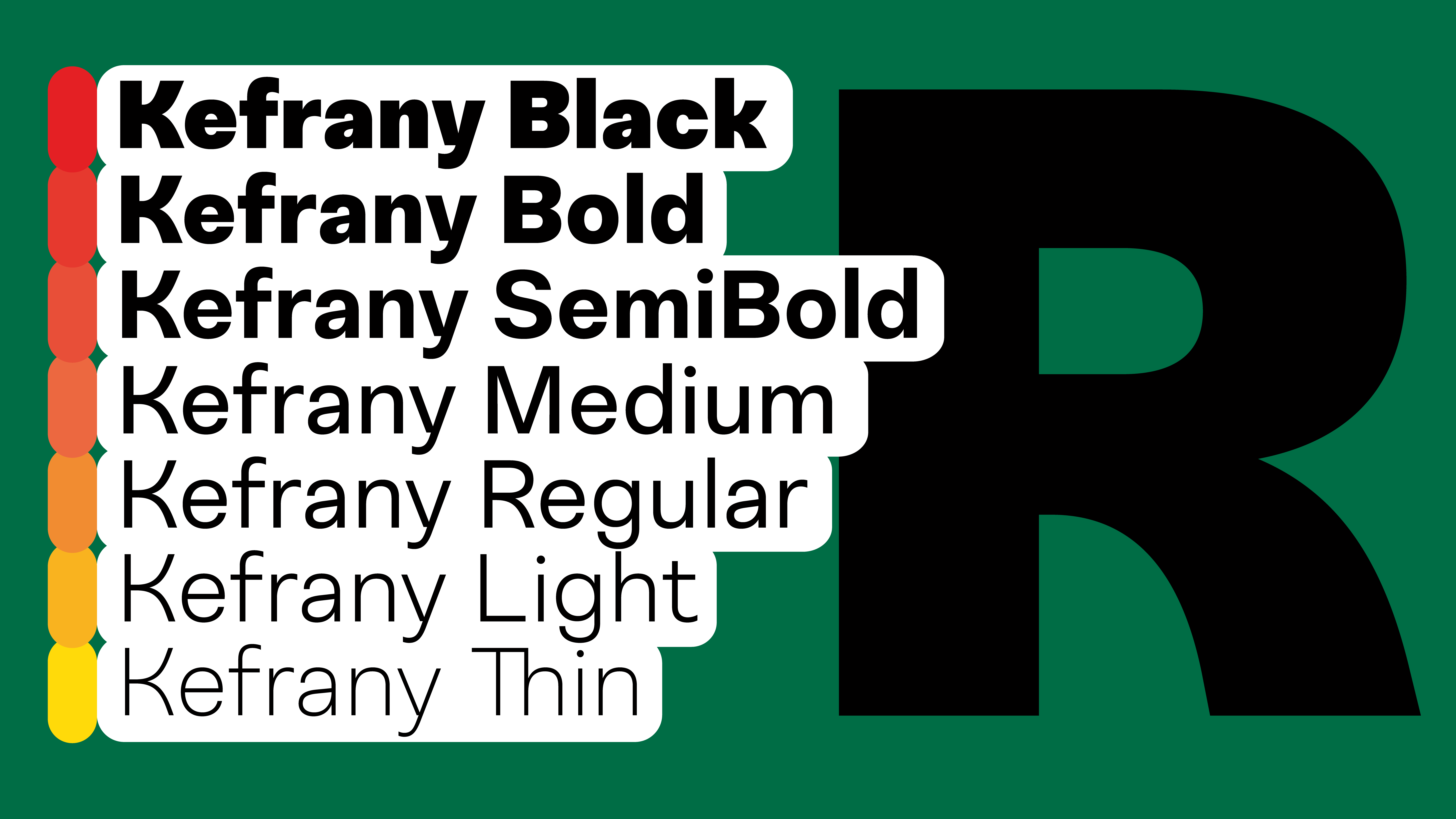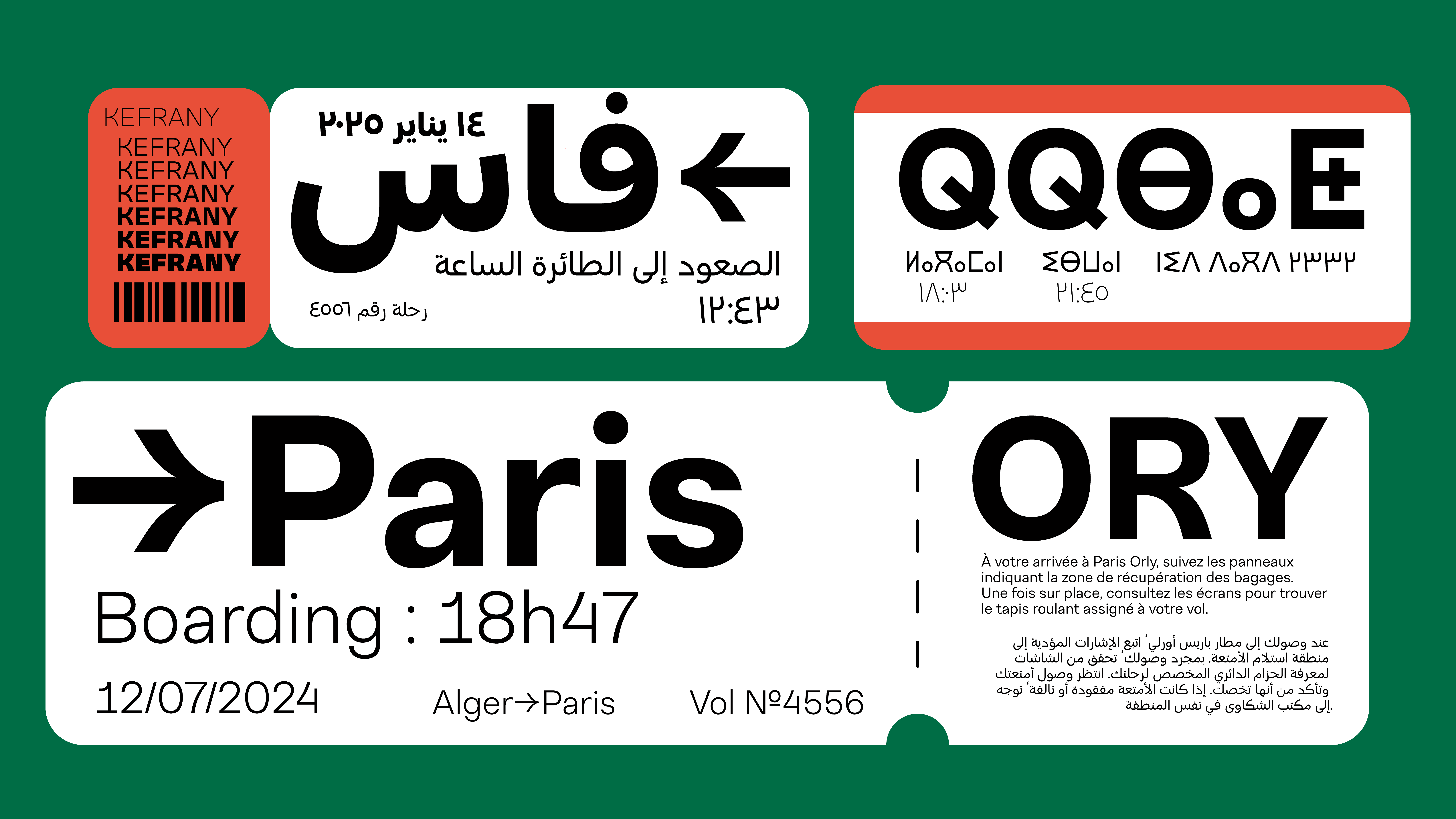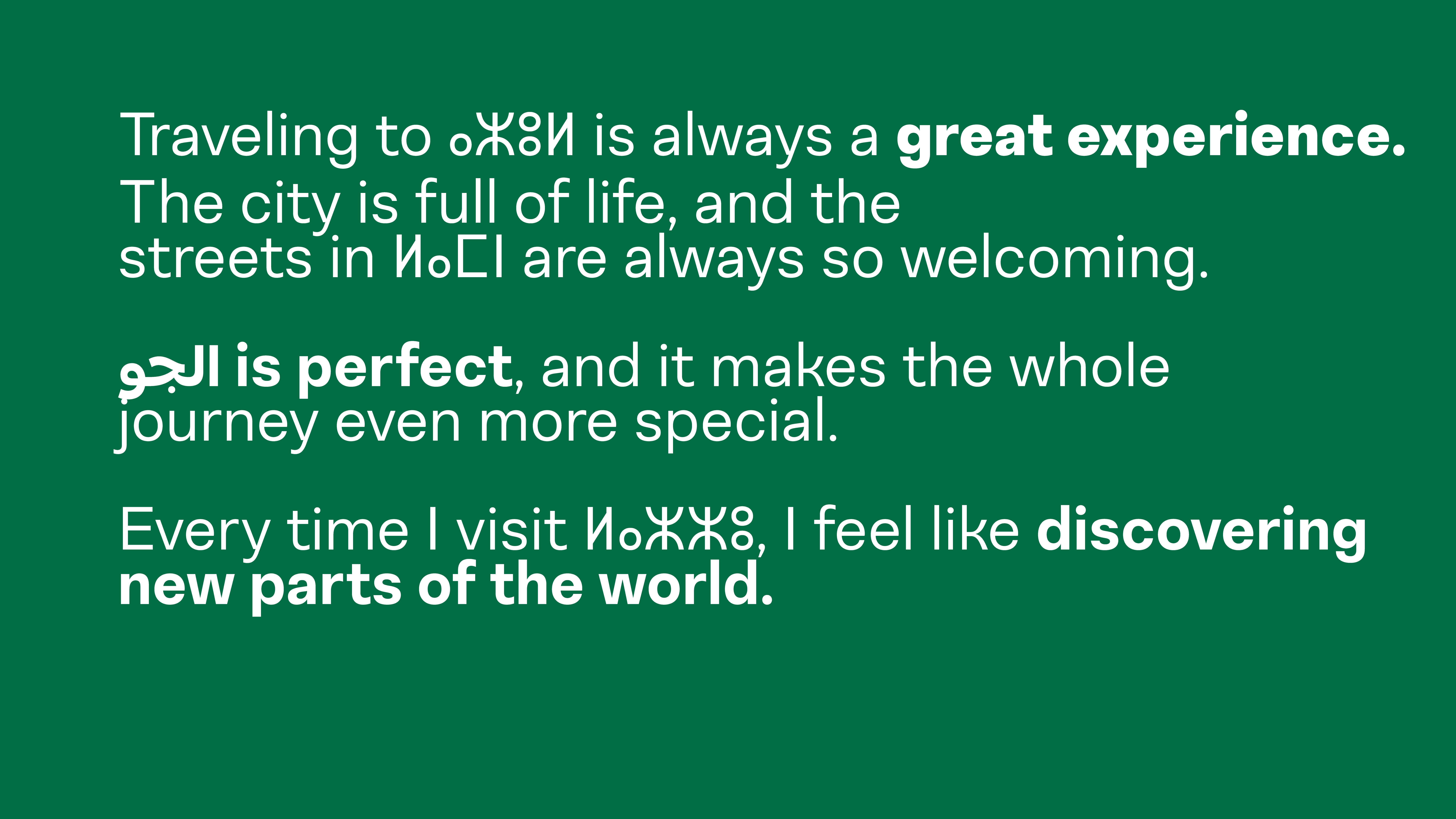
Kefrany
كفراني
في بابلفونت، لا نرسم الحروف... بل نُحرّرها من أقفاص اللغة! هل رأيتَ حرفًا يتمطّى؟ نحن رأيناه. وحرفًا آخر يرقص على السطر، ثم يختفي فجأة في هامش المعنى. بعض الحروف عندنا تنام في الكلمة، وبعضها الآخر لا يعرف النوم... كل ما يريده هو النطق، النطق، ثم النطق! وهناك حرف كان يصرخ: "أنا لست نقطتين فوق التاء، أنا تاج!" وحرف آخر رفض أن يكون في نهاية الجملة، لأنه يخاف من النقطة. في بابلفونت، الحروف تتحدث لغات لا تُعدّ. العربية، اللاتينية، التيفيناغ، الكورية... كلها تجلس على طاولة واحدة، تشرب الشاي، وتتناقش في قضايا الشكل والبياض والميزان البصري. قد تقول لي: "لكن الحرف لا يتكلم!" وأنا أقول لك: بل يتكلم، فقط عليك أن تقرأه جيّدًا. الخط ليس مجرد رسم، إنه تمثيل مسرحي صامت، يصرخ دون صوت. بعض الخطوط سمينة، وبعضها نحيفة، وبعضها مثل طير لا يعرف أين يضع قدميه. في بابلفونت، لا نبيع الخطوط، بل نروي بها القصص. الخط عندنا لا يُقصّ ولا يُضغط... هو يُهمَس، يُقطّر، يُسكب على الصفحة كالعطر. حرف العين قال يومًا لحرف الاّم: "أنا أعقد منك!" فردّ الاّم: "لكنني أطول!" وفي النهاية اتفقا على أن الجمال في الخط ليس في الطول أو العقد، بل في الانسجام. نحن في بابلفونت لا نبحث عن الحروف، نحن نخلقها. ثم نتركها تسير على الورق كما تشاء... فهل تجرؤ على قراءتها؟
ⴽⴻⴼⵔⴰⵏⵢ
ⵜⴰⵡⵉⵏⴰ ⵉⵏⴰⵡⴰⵙⵙ ⵏ ⵉⵖⵔⵉ ⴷ ⴰⵎⵓⵍ ⵏ ⴰⵙⴳⴰⵣ. ⵉⵖⵍⴰ ⴷ ⴰⴽⴰⵣ, ⴰⵙⵉⵏ ⴷ ⵢⵉⵏ, ⵉⵎⵓⵙⵙⴰ ⵓⵏⴰⴷ ⴰⵎⴰⵣⵉⵖ ⴰⴷ ⴰⵍⴰⵎⴰⵏ. ⴰⵡⵉⴷ ⴰⴳⵔⴰⵡ ⵓⵙⵏⵉⴹ, ⵏⵉⴷⵓⴷ ⴰⵣⴰⵍ, ⵉⵍⴰ ⵓⴱⴰⵔⴷ ⴰⴽⵔⴰⵡ ⵙⴰ ⵉⵣⴰⵡⴰⵏ. ⴰⵎⴰⵍⵍⵓ ⵏⵉⵖ, ⴰⴷⵔⴰⵏ ⵉⴷ ⴰⵏⵉⵍⵍⵉ ⴷ ⴰⴷⵓⴷⵉⵏ. ⵓⵙⵍⴰⵡ ⴰⵏⵎⴰⴹ ⵏ ⵜⴰⵡⵉⵏⴰ ⴷ ⴰⵙⴳⴰⵣ ⵙ ⵜⴰⵙⴳⴰⵡⵜ ⵓⵏⴰⴷ ⵜⴰⵎⴰⵣⵉⵖⵜ. ⴰⵡⵉⵙⵉ ⵙⴰ ⴷⴰⵔ ⵉⴷ ⵓⵏⵖⵓⵍ ⴷ ⴰⵔⴰⵡ. ⵙⵉⵏ ⴰⴷ ⴰⵙⵙⵓⵔⵉⵏ ⵙ ⵜⴰⵣⴰⵍⵜ. ⴰⵏⴰⵎⴻⵔⴰ ⵏⴰⵎⴰⵢⵏ ⵉⵙⴷⴰ ⵓⴷⴻⵔⵏ ⵏⵓⵎⴻⵔⵍⴰⴷ, ⵓⵏⴰⴷ ⵉⵎⴰⵙⴷⴰ ⴷ ⴰⵍⴰⵎⴰⵏ. ⵉⵏⴰⵡⴰⵙⵙ ⵜⴰⵎⵓⵍⴰⵡⵉⵜ, ⵙⵙⴰⴳⴰⵔⵉⵜ, ⵙⴰⵡⴰⵙⴰⵏⵜ. ⴰⴳⴳⴰⴷ ⵏ ⵉⵙⵙⴰ ⴰⴷ ⴰⴳⴳⴰⴷ ⵏ ⵓⴳⵔⴰⵡ. ⵜⴰⵡⵉⵏⴰ ⴷ ⴰⴼⴰⵏⴰⵙ ⴷ ⵜⴰⵎⵓⵣⵣⴰ ⵉⴷ ⴰⵙⵉⵏ. ⵜⴰⵏⴰⴹⴰ ⴷ ⵜⴰⵎⴻⴳⴷⴰ ⵉⴷ ⵜⵉⵎⵓⴽⴽⴰⵍⵉⵢⵉⵏ. ⴰⵍⴰⵎⴰⵏ ⴷ ⴰⵙⴳⴰⵣ ⵙⴰ ⵉⴱⴰⵏ ⵙ ⵓⴱⴻⵙⴰⵡⵉⵏ. ⵓⵙⵍⴰⵡ ⴰⴳⴷⴰⵔⴻⵏ, ⵓⵙⵍⴰⵡ ⴰⵍⴻⴷⵉ ⴷ ⵜⴰⵏⵏⴰⵙⵙⵓⵏⵜ.ⵜⴰⵡⵉⵏⴰ ⵉⵏⴰⵡⴰⵙⵙ ⵏ ⵉⵖⵔⵉ ⴷ ⴰⵎⵓⵍ ⵏ ⴰⵙⴳⴰⵣ. ⵉⵖⵍⴰ ⴷ ⴰⴽⴰⵣ, ⴰⵙⵉⵏ ⴷ ⵢⵉⵏ, ⵉⵎⵓⵙⵙⴰ ⵓⵏⴰⴷ ⴰⵎⴰⵣⵉⵖ ⴰⴷ ⴰⵍⴰⵎⴰⵏ. ⴰⵡⵉⴷ ⴰⴳⵔⴰⵡ ⵓⵙⵏⵉⴹ, ⵏⵉⴷⵓⴷ ⴰⵣⴰⵍ, ⵉⵍⴰ ⵓⴱⴰⵔⴷ ⴰⴽⵔⴰⵡ ⵙⴰ ⵉⵣⴰⵡⴰⵏ. ⴰⵎⴰⵍⵍⵓ ⵏⵉⵖ, ⴰⴷⵔⴰⵏ ⵉⴷ ⴰⵏⵉⵍⵍⵉ ⴷ ⴰⴷⵓⴷⵉⵏ. ⵓⵙⵍⴰⵡ ⴰⵏⵎⴰⴹ ⵏ ⵜⴰⵡⵉⵏⴰ ⴷ ⴰⵙⴳⴰⵣ ⵙ ⵜⴰⵙⴳⴰⵡⵜ ⵓⵏⴰⴷ ⵜⴰⵎⴰⵣⵉⵖⵜ. ⴰⵡⵉⵙⵉ ⵙⴰ ⴷⴰⵔ ⵉⴷ ⵓⵏⵖⵓⵍ ⴷ ⴰⵔⴰⵡ. ⵙⵉⵏ ⴰⴷ ⴰⵙⵙⵓⵔⵉⵏ ⵙ ⵜⴰⵣⴰⵍⵜ. ⴰⵏⴰⵎⴻⵔⴰ ⵏⴰⵎⴰⵢⵏ ⵉⵙⴷⴰ ⵓⴷⴻⵔⵏ ⵏⵓⵎⴻⵔⵍⴰⴷ, ⵓⵏⴰⴷ ⵉⵎⴰⵙⴷⴰ ⴷ ⴰⵍⴰⵎⴰⵏ. ⵉⵏⴰⵡⴰⵙⵙ ⵜⴰⵎⵓⵍⴰⵡⵉⵜ, ⵙⵙⴰⴳⴰⵔⵉⵜ, ⵙⴰⵡⴰⵙⴰⵏⵜ. ⴰⴳⴳⴰⴷ ⵏ ⵉⵙⵙⴰ ⴰⴷ ⴰⴳⴳⴰⴷ ⵏ ⵓⴳⵔⴰⵡ. ⵜⴰⵡⵉⵏⴰ ⴷ ⴰⴼⴰⵏⴰⵙ ⴷ ⵜⴰⵎⵓⵣⵣⴰ ⵉⴷ ⴰⵙⵉⵏ. ⵜⴰⵏⴰⴹⴰ ⴷ ⵜⴰⵎⴻⴳⴷⴰ ⵉⴷ ⵜⵉⵎⵓⴽⴽⴰⵍⵉⵢⵉⵏ. ⴰⵍⴰⵎⴰⵏ ⴷ ⴰⵙⴳⴰⵣ ⵙⴰ ⵉⴱⴰⵏ ⵙ ⵓⴱⴻⵙⴰⵡⵉⵏ. ⵓⵙⵍⴰⵡ ⴰⴳⴷⴰⵔⴻⵏ, ⵓⵙⵍⴰⵡ ⴰⵍⴻⴷⵉ ⴷ ⵜⴰⵏⵏⴰⵙⵙⵓⵏⵜ.
Kefrany — Rational. Versatile. Functional. A sans-serif typeface designed with balance and restraint, Kefrany offers 7 weights from Thin to Black, supporting Latin, Arabic, and Tifinagh scripts. Its uniform strokes, near-monoline structure, and slightly organic proportions give it a strong yet approachable voice. With its neutral and industrial feel, Kefrany is perfect for corporate branding, signage, and digital interfaces: where clarity and confidence matter most.